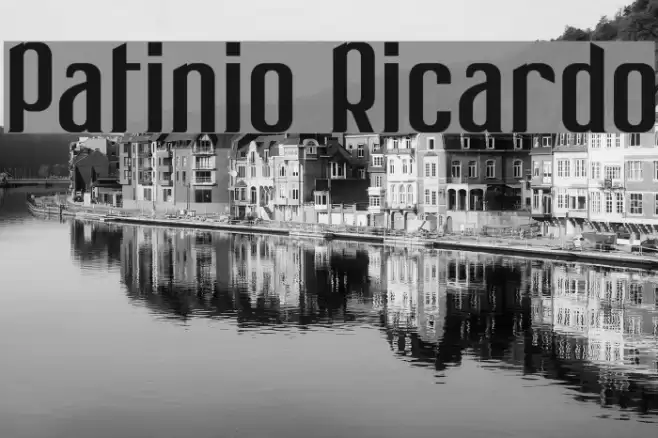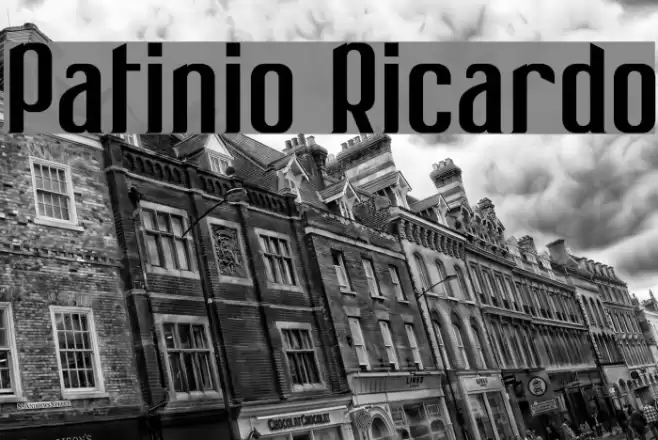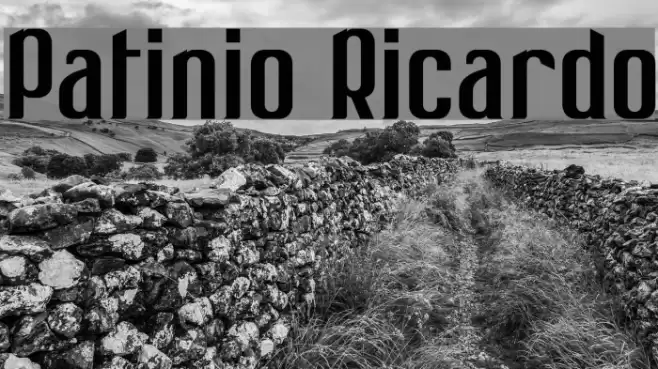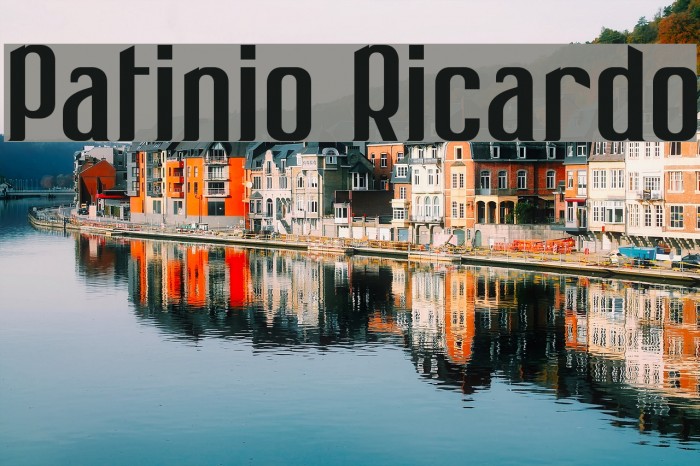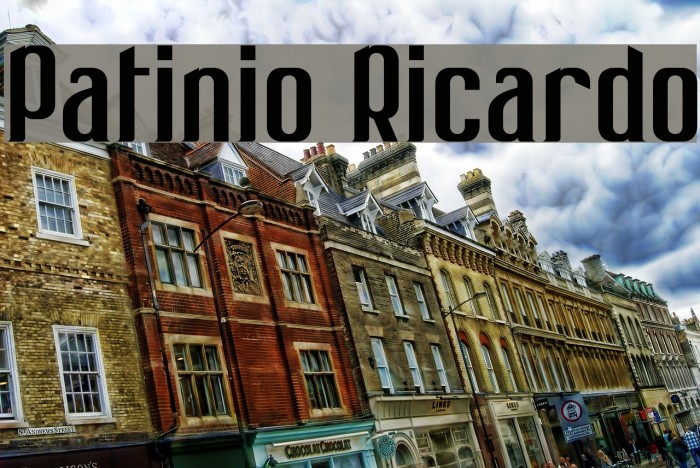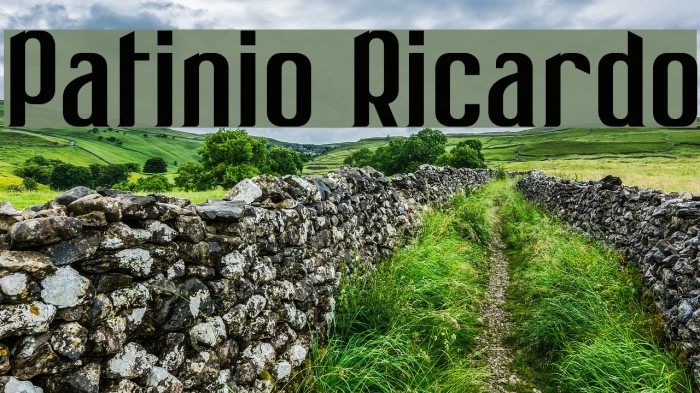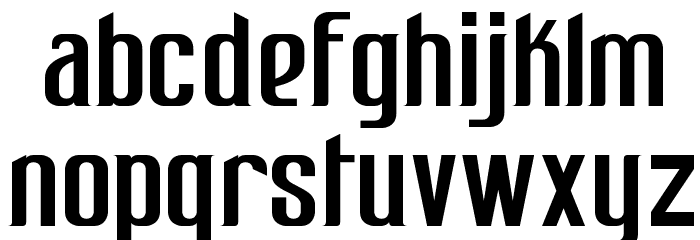
Patinio Ricardo Font
Patinio Ricardo Description
This font features a bold and striking design with a modern flair. The characters are tall and narrow, giving it a condensed appearance that is both stylish and functional. The uppercase letters exhibit a strong geometric influence, with sharp angles and clean lines that create a sense of precision and clarity. The lowercase letters maintain this geometric style, ensuring consistency across the typeface. The font's overall look is sleek and contemporary, making it suitable for a variety of design applications. Its unique character shapes and high legibility make it an excellent choice for headlines and display purposes.
A bold, modern font with a condensed, geometric style from Uncategorized fonts.
- Proposed Projects: Ideal for branding, advertising, posters, and editorial design.